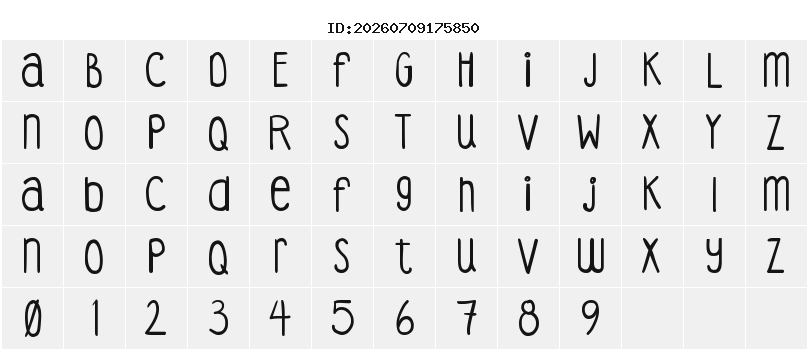
• Font Name: DJB Coffee Shoppe Espresso
• Designer: Darcy Baldwin (djbfontography)
About DJB Coffee Shoppe Espresso.ttf
DJB Coffee Shoppe Espresso.ttf is a modern, elegant sans-serif font designed for ultimate readability and visual harmony. Perfect for branding, headlines, web design, and print materials.